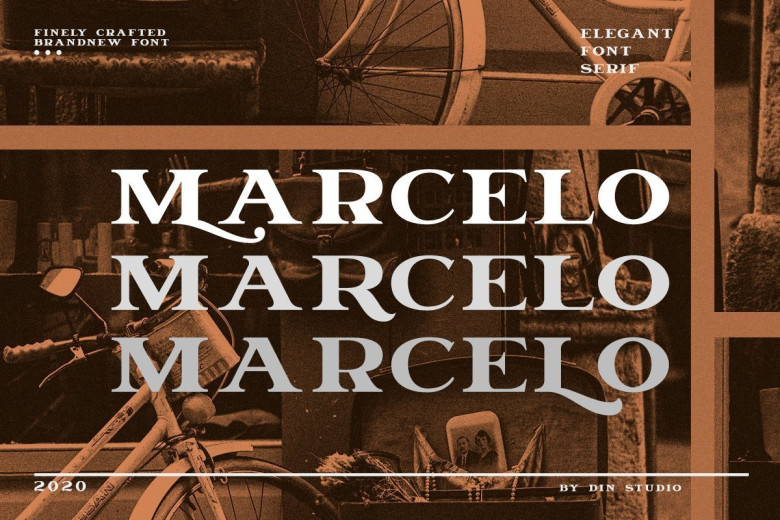
Marcelo Engraved Serif Font
Marcelo Engraved Serif Font is an exquisite, rare & bold serif font, retrieved from long-forgotten archives, hidden in the secret heart of the Serenissima Republic of Venice. The font includes numbers, punctuation and special characters for international languages support.